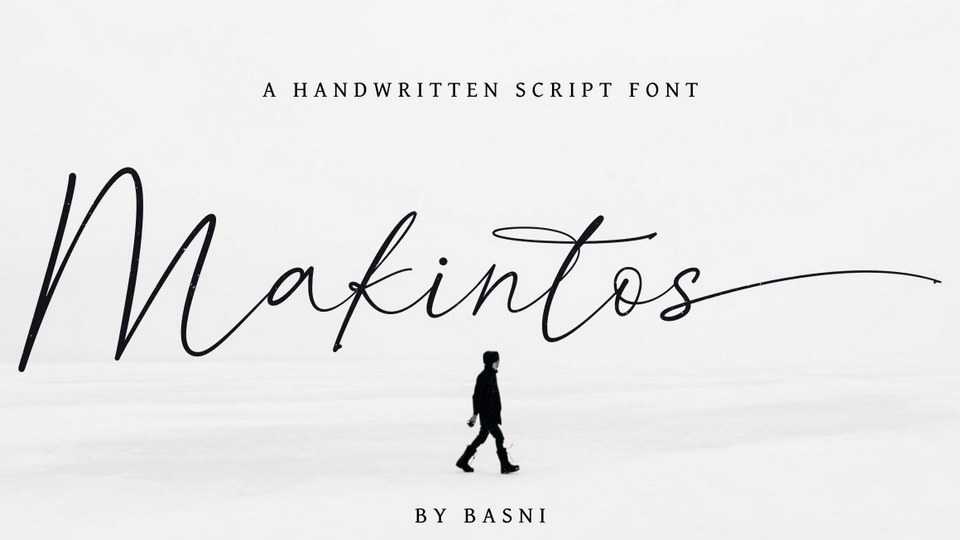
Download Makintos font, a thin lettered and graceful handwritten script typeface. Makintos is perfect for signature, branding, websites, red wine labels, and editorial designs.